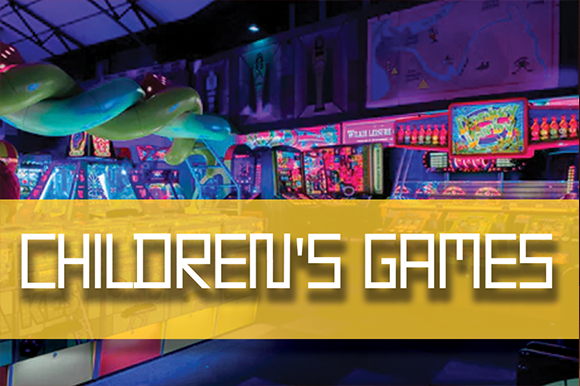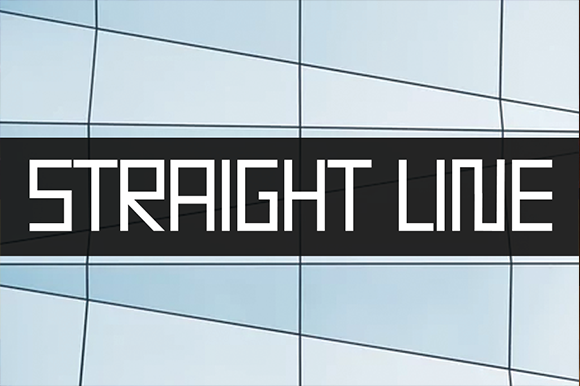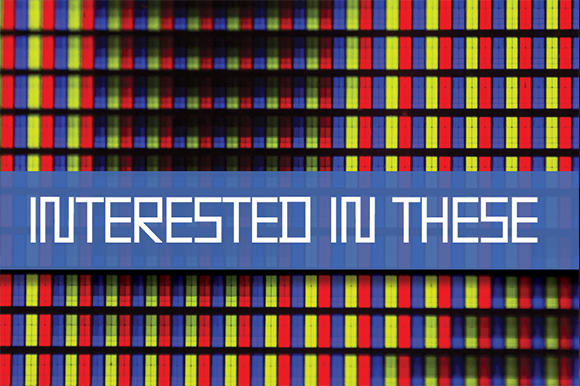
Introduction to Pixel Smart Font
Pixel Smart is a casual, fun display font.
Clean and a little bit quirky, this font is the perfect fit for all of your logos, branding, social media, and crafty DIY projects .
Why Choose Pixel Smart Font?